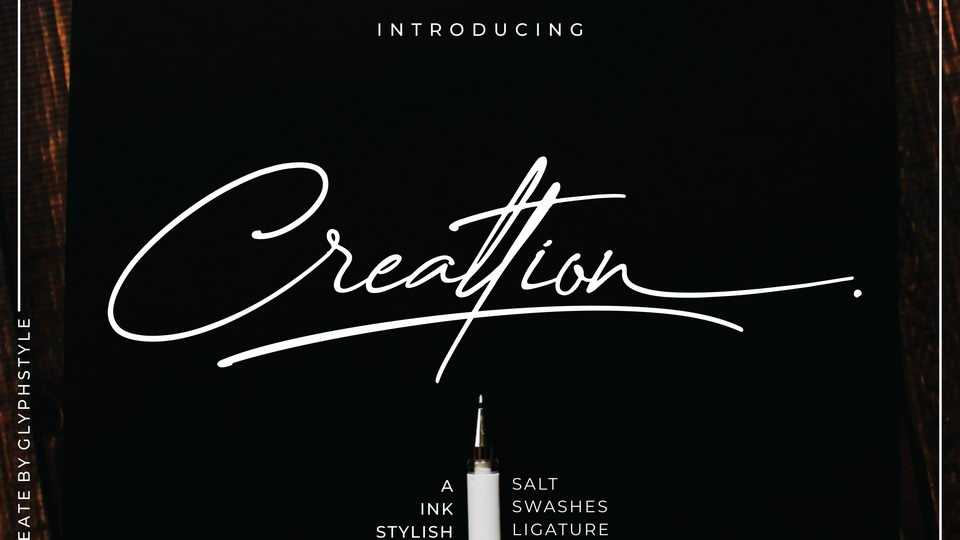
Download Creattion font, a classy signature script with a natural style & ink pen effect. Creattion has elegant and manly style with natural hand-drawn.